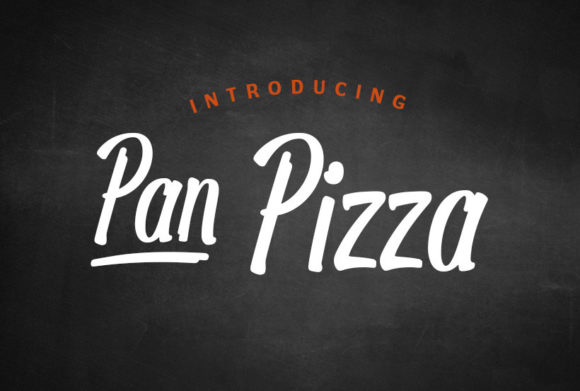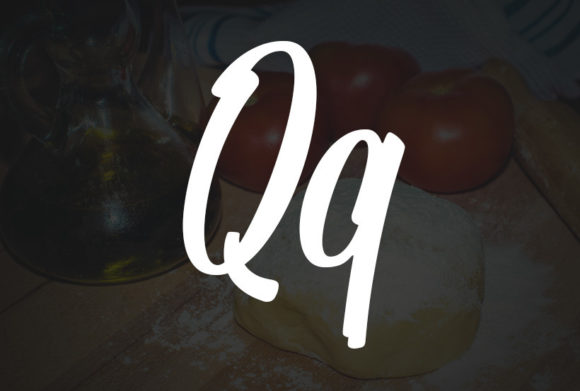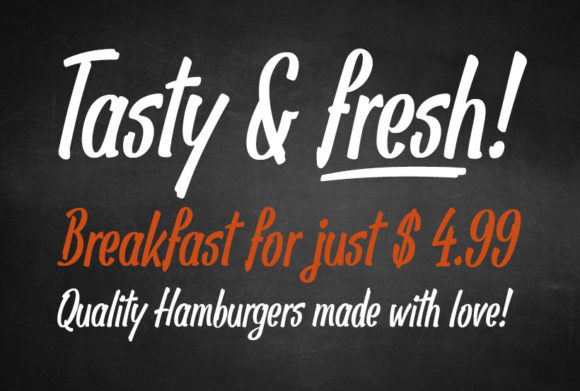
Pan Pizza
About Pan Pizza Font
Pan Pizza is a relaxed and flowing brushed script font, featuring a lovely style. No matter the topic, this font will be an incredibly asset to your fonts’ library, as it has the potential to elevate any creation.